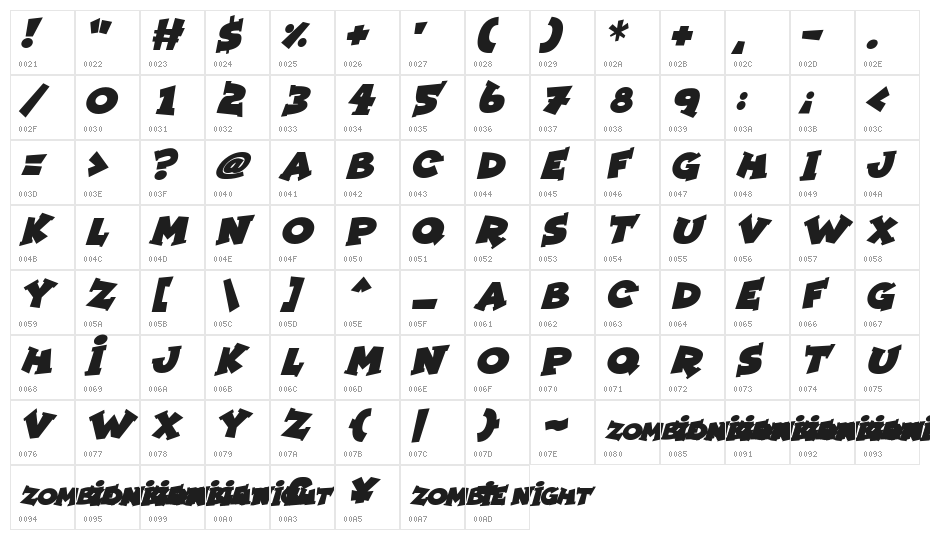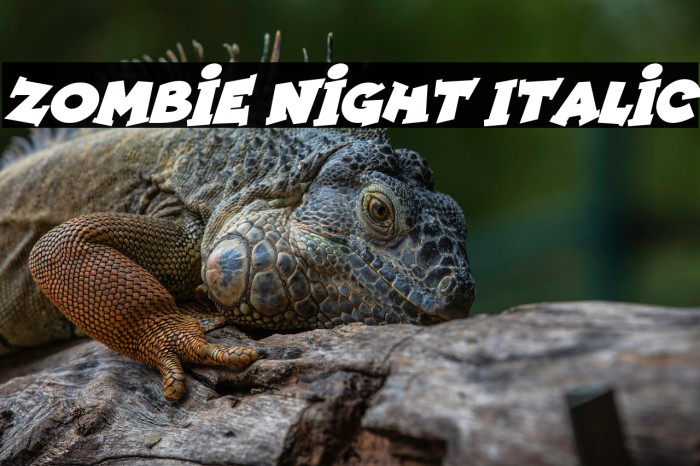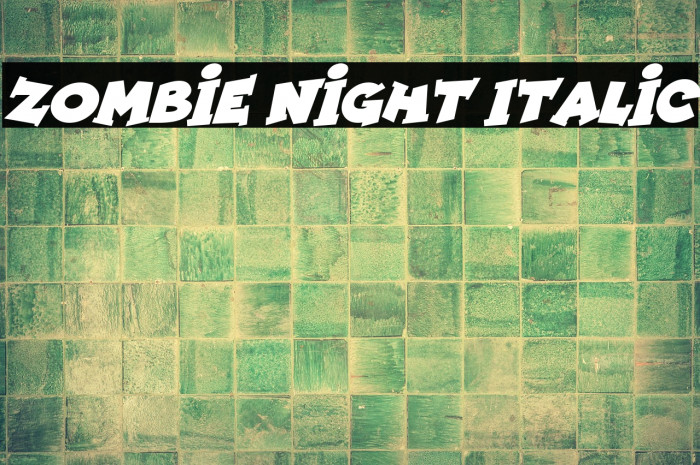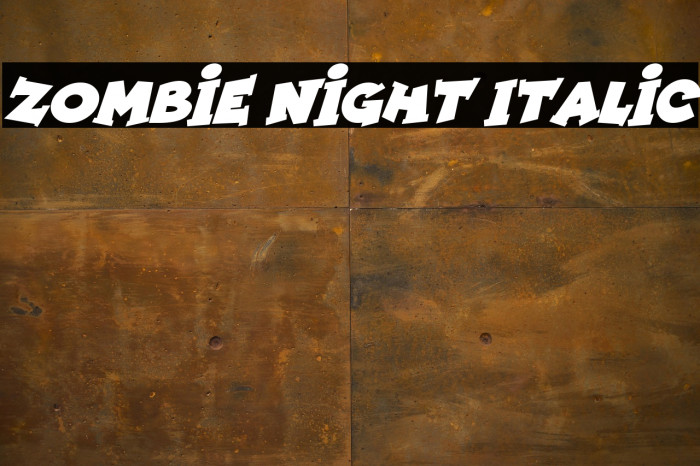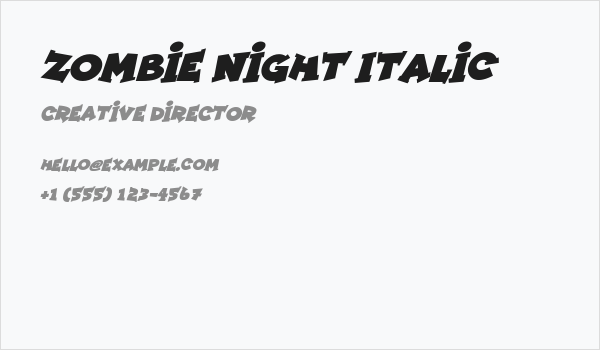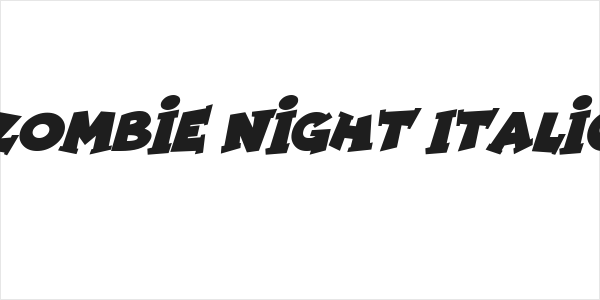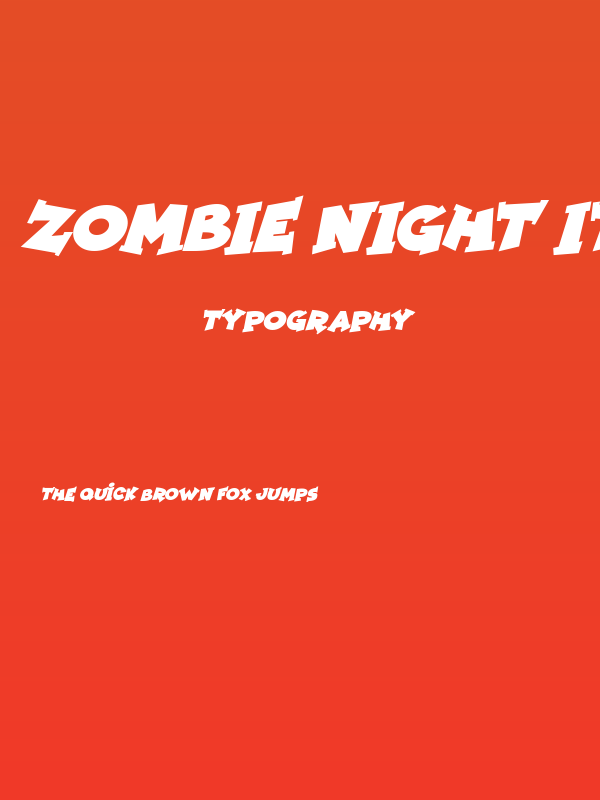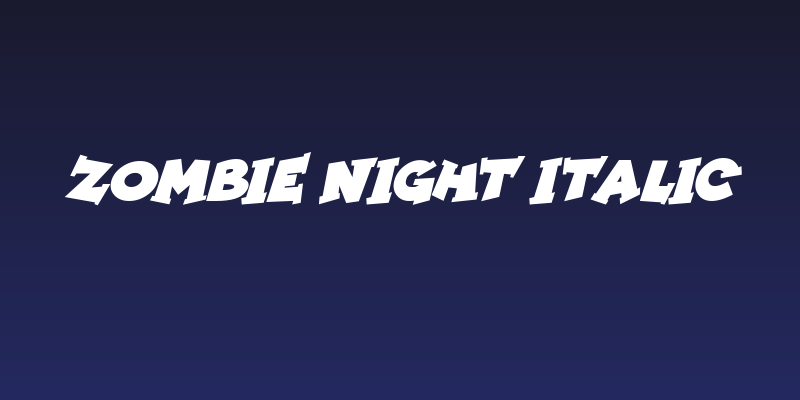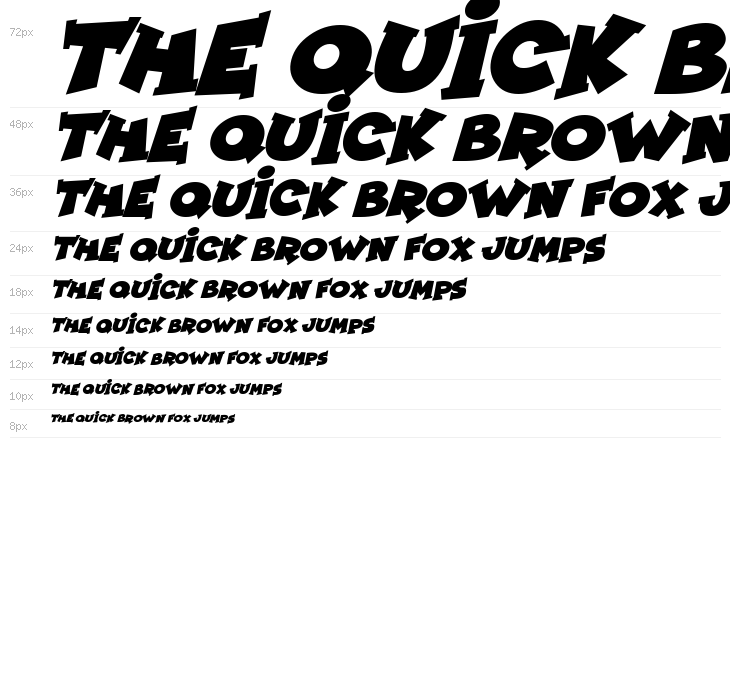
Zombie Night Italic Font
Zombie Night Italic Description
This font features a bold and dynamic style with a distinct slant, giving it an energetic and edgy appearance. The characters are thick and robust, with sharp angles and irregular edges that create a sense of movement and intensity. The uppercase and lowercase letters maintain a consistent style, while the numerals and special characters complement the overall design. This font's unique aesthetic makes it stand out, perfect for projects that require a bold statement.
| Proposed Projects | Ideal for horror-themed posters, Halloween events, video game titles, and edgy branding. |